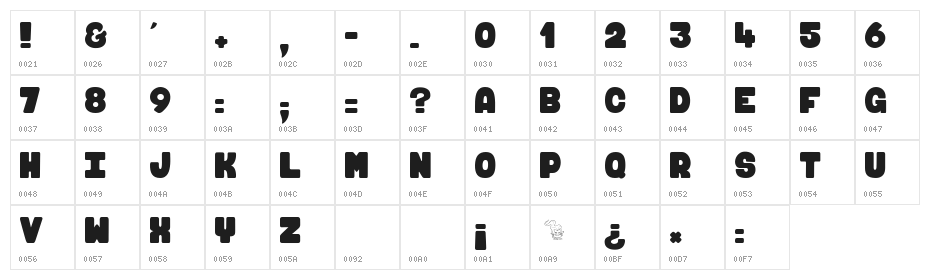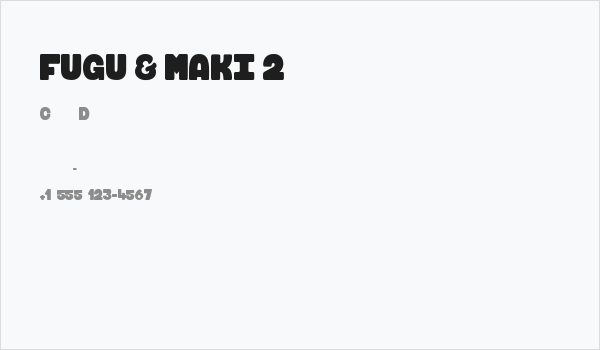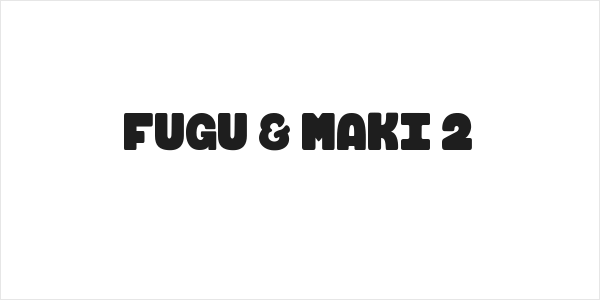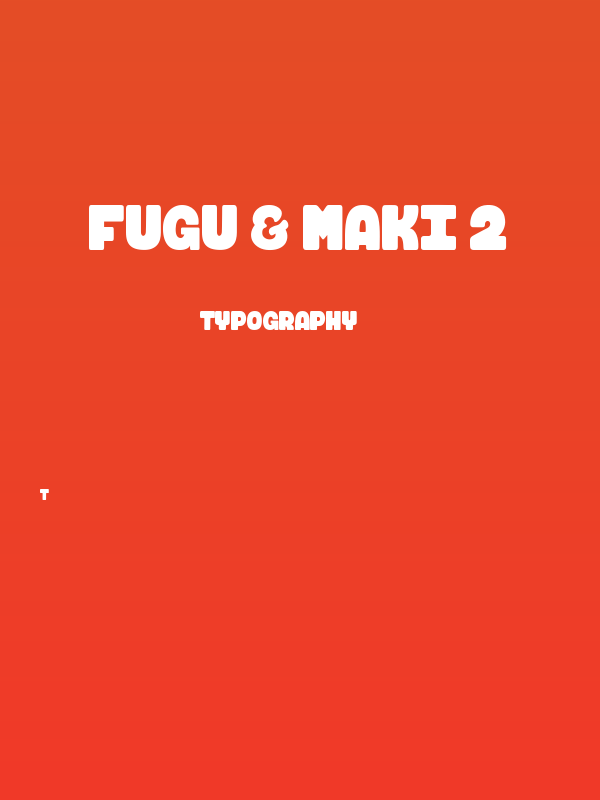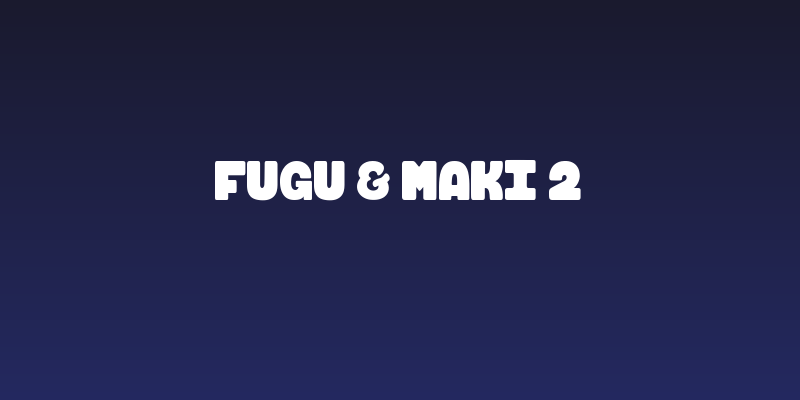
FUGU & MAKI 2 Font
FUGU & MAKI 2 Description
This font features bold, rounded characters with a playful and friendly appearance. The letters are uniformly thick, giving them a strong presence on the page. The rounded edges and consistent stroke width contribute to a cohesive and approachable design. The numbers and special characters follow the same style, ensuring a harmonious look across all elements. This font is ideal for projects that require a bold statement with a touch of whimsy.
| Proposed Projects | Ideal for children's books, playful branding, posters, and social media graphics. |